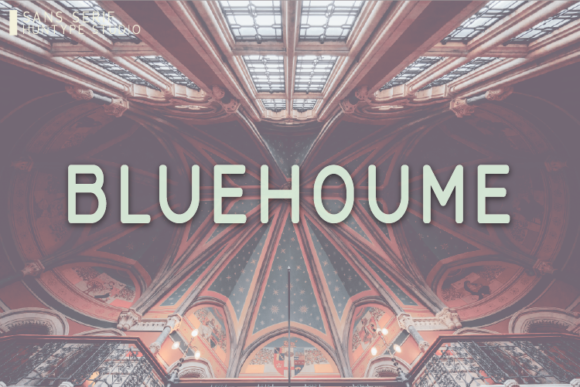
The Bluehoume Font: A Minimalist’s Dream Come True
I’ll never forget the time I was working on a project for a client who wanted a modern, sleek look. I had spent hours scouring the internet for the perfect font, but nothing seemed quite right. That was until I stumbled upon Bluehoume – a minimal and neat sans serif font that instantly caught my eye. In this article, I’ll share my experience with Bluehoume, its features, and how to make the most of it in your designs.
An Honest Review of Bluehoume
What I Love About Bluehoume ✨
• ✅ Its simplicity and versatility make it perfect for a wide range of projects
• ✅ The font is highly legible, even at small sizes
• ✅ It’s perfect for both digital and print designs
• ✅ The font comes with a range of OpenType features, glyphs, and stylistic alternates
• ⚠️ Some users may find the font too minimalist or lacking in personality
• ⚠️ It may not be the best choice for body text or long-form content
The Story Behind Bluehoume
Bluehoume was designed with the goal of creating a font that’s both simple and versatile. The designer wanted to create a font that could be used for a wide range of projects, from digital designs to print materials. The result is a font that’s both modern and timeless.
Q: What is Bluehoume font?
A: Bluehoume is a minimal and neat sans serif font that’s perfect for a wide range of projects.